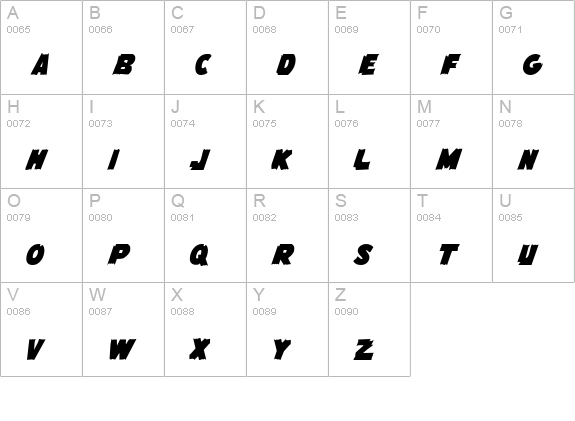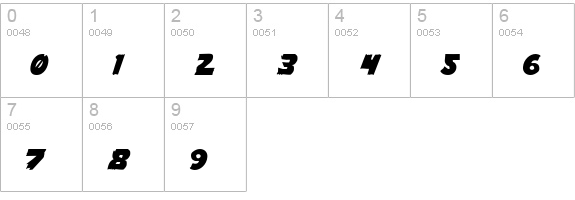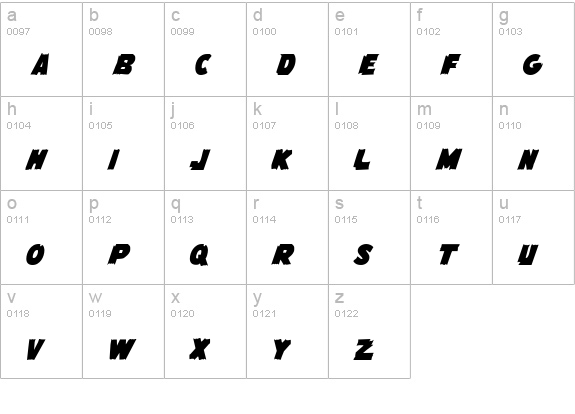
Flying Leatherneck is a bold and dynamic font with a strong military-inspired design. Its sharp edges and distinctive letterforms give it a commanding presence, making it perfect for projects that require a bold statement. The font's rugged and adventurous aesthetic evokes images of vintage aircraft and daring missions. What sets Flying Leatherneck apart is not just its striking appearance, but also the fact that it is available for free download at FontsMarket.com. This means that you can easily add this powerful font to your collection without any cost, making it a valuable resource for designers, writers, and anyone looking to make a bold impact with their typography. Whether you're creating a poster for an action-packed event, designing a logo for a rugged outdoor brand, or simply looking to add some military flair to your project, Flying Leatherneck is the perfect choice. Download it for free today and let its bold and adventurous spirit elevate your designs to new heights.